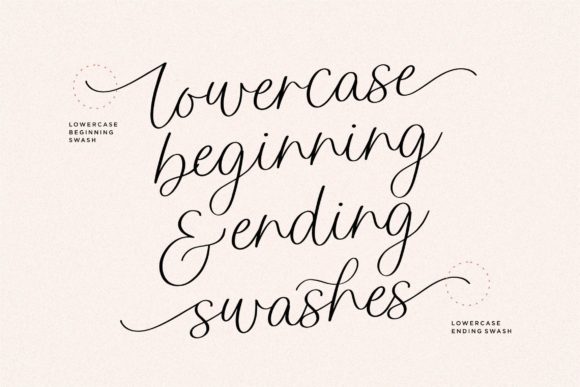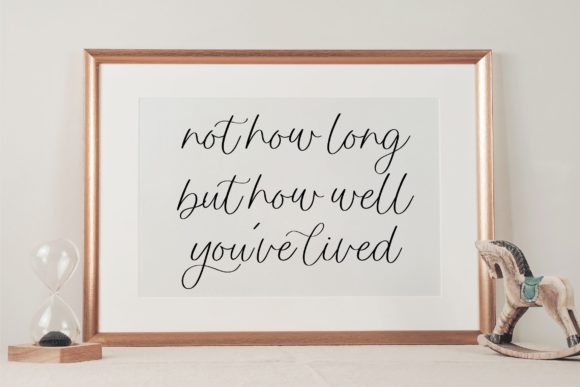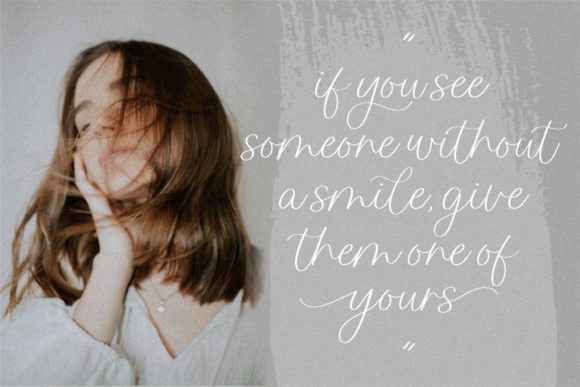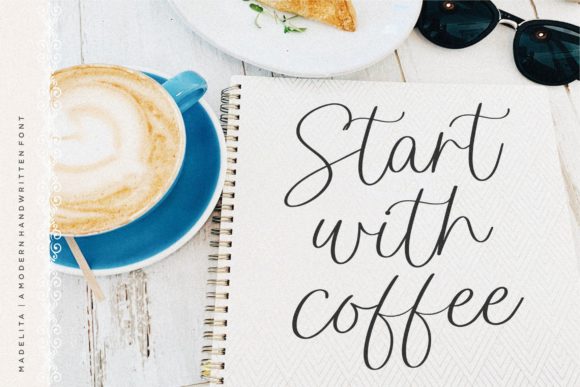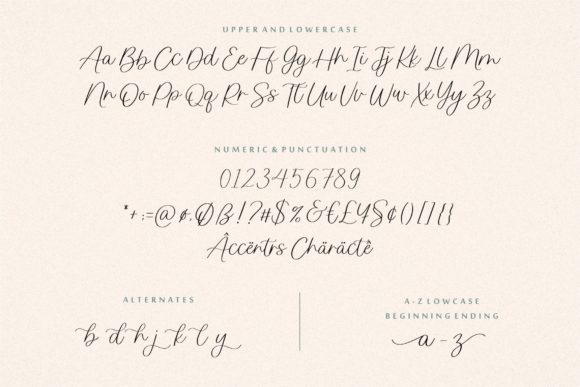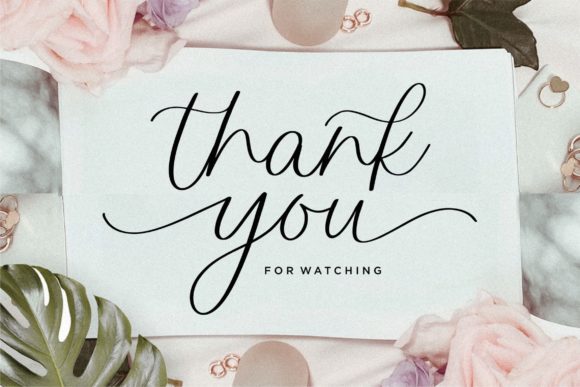
Introduction to Madelita Font
As designers, we’ve all been there – staring at a blank canvas, struggling to bring our creative vision to life. The perfect font can make all the difference. For me, it was the moment I stumbled upon the Madelita Font – a chic, refined script font that exudes sophistication and elegance. Its stylish alternates and ligatures are the perfect match for any project, from elegant invitations to high-end branding materials.
The value of a high-quality design resource like Madelita Font cannot be overstated. Not only does it save us time and effort, but it also elevates our designs to the next level. With Madelita Font, designers can create stunning, professional-looking materials with ease – from business cards and brochures to websites and social media graphics.
Key Features of Madelita Font
- High-quality design resource suitable for various creative projects, including digital art, web design, and print media.
- Features a unique, hand-drawn design style with intricate details and textures, setting it apart from other fonts.
- Supports a range of languages, including Latin, Cyrillic, and Greek scripts, making it a versatile choice for multilingual projects.
Honest Review: Madelita Font
I recently came across the Madelita Font while searching for a unique design resource to elevate a creative project. As a designer, I was excited to see if this font lived up to its promise of high quality and versatility.
The Madelita Font is a lovely script font that works beautifully for headings and titles. I particularly like its playful and elegant feel, which makes it perfect for a variety of creative projects. The font is available for free download, which is always a bonus!
- Unique and elegant design
- Perfect for creative projects, such as invitations, branding, and packaging
However, I do have a few concerns about the Madelita Font:
- ⚠️ Limited font sizes and weights available
- ⚠️ Not ideal for body text due to its script nature
- ⚠️ May require additional styling to achieve the desired look on transparent backgrounds
Overall, I’m impressed with the Madelita Font, but I do think it’s best suited for specific design applications. With some careful planning and styling, it can be a fantastic addition to your design arsenal.
The Madelita Font is ideal for creative projects such as brochures, flyers, and social media graphics. Its transparent background makes it perfect for overlaying on images or videos.